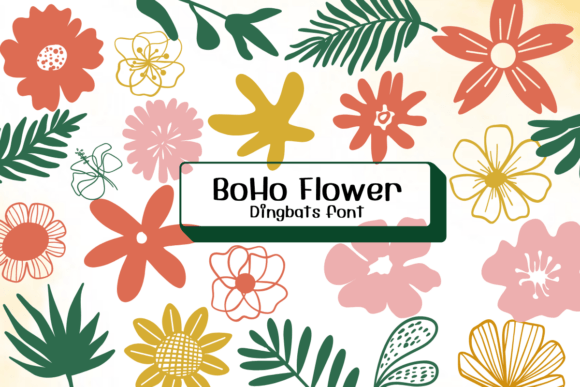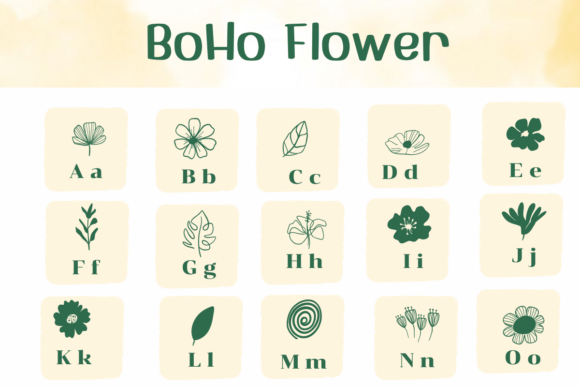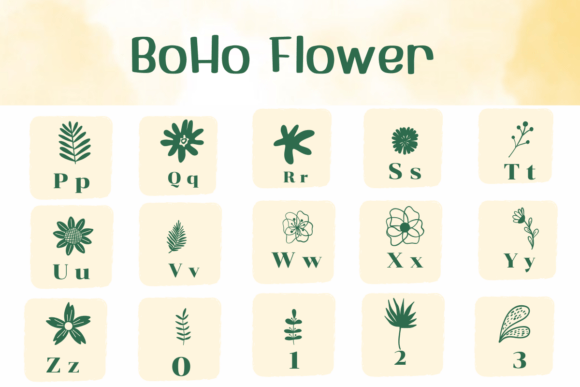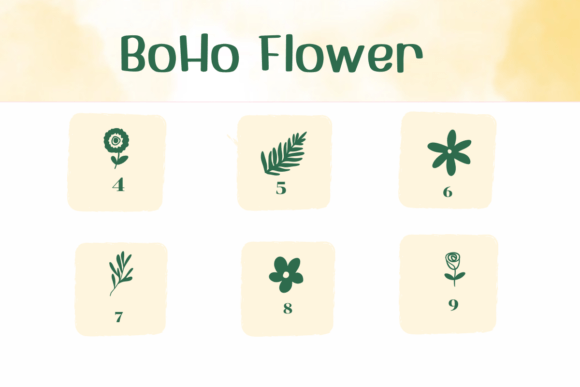
Boho Flower Font
About the Boho Flower Font
Welcome to the world of Boho Flower Font, a typeface that will inspire your next great project. BoHo Flower is a dingbats font with a floral theme. This font can enhance your creative projects such as wedding invitations, DIY, crafts, decorations, logos, and many other creative ideas.
Boho Flower’s whimsical style is ideal for projects requiring a touch of delicate charm, such as wedding stationery, branding for artisanal businesses, or packaging for handcrafted goods. It excels in logos, short headlines, and decorative elements where its floral motifs shine. However, its decorative nature makes it unsuitable for body text or UI elements; readability suffers at smaller sizes.
Pairing Boho Flower with a clean sans-serif like Open Sans for body copy provides excellent contrast, balancing its ornate details with a modern feel. Alternatively, a classic serif font such as Garamond could offer a sophisticated counterpoint, enhancing the elegant aspects of the floral designs. For a more playful approach, consider pairing it with a handwritten script font, but ensure legibility remains a priority.
The font projects a friendly, romantic, and slightly bohemian personality. Its delicate linework and floral themes suggest handmade quality and a connection to nature, making it a perfect fit for brands emphasizing handcrafted aesthetics or a vintage charm.